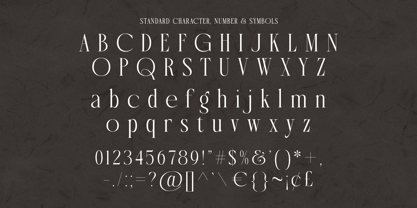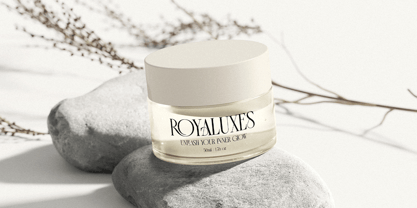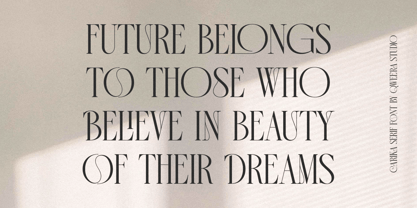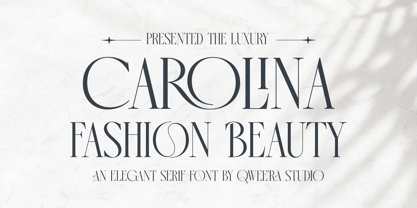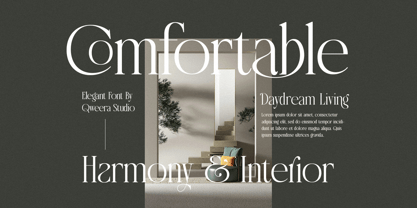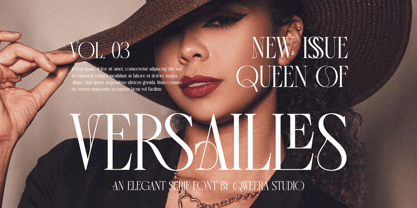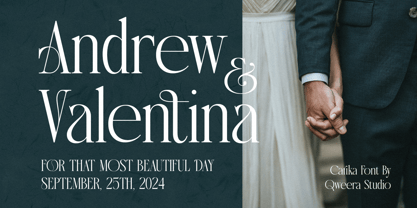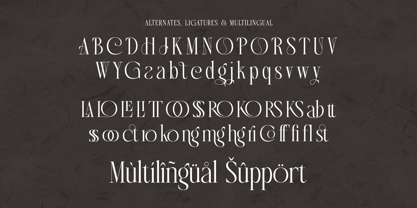
Carika
por Qweera Studio
La familia tipográfica Carika fue diseñada por Idhham Cholid Rikzano Yahya y publicada por Qweera Studio. Carika contiene 2 estilos y opciones de paquete familiar.
Carika is an Elegant Serif font designed to add a touch of luxury to any of your design projects. It comes in regular and italic versions, combining classic elegance with modern style. Equipped with unique alternates and ligatures, Carika is perfect for branding, editorial, and other creative projects that require elegant and classy typography.
• Regular & Italic
• All Multilingual symbol
• Opentype features ( ligature, alternate )
Multilingual character supports : (Afrikaans, Albanian, Catalan, Croatian, Czech, Danish, Dutch, English, Estonian, Finnish, French, German, Hungarian, Icelandic, Italian, Lithuanian, Maltese, Norwegian, Polish, Portuguese, Slovenian, Spanish, Swedish, Turkish, Zulu)